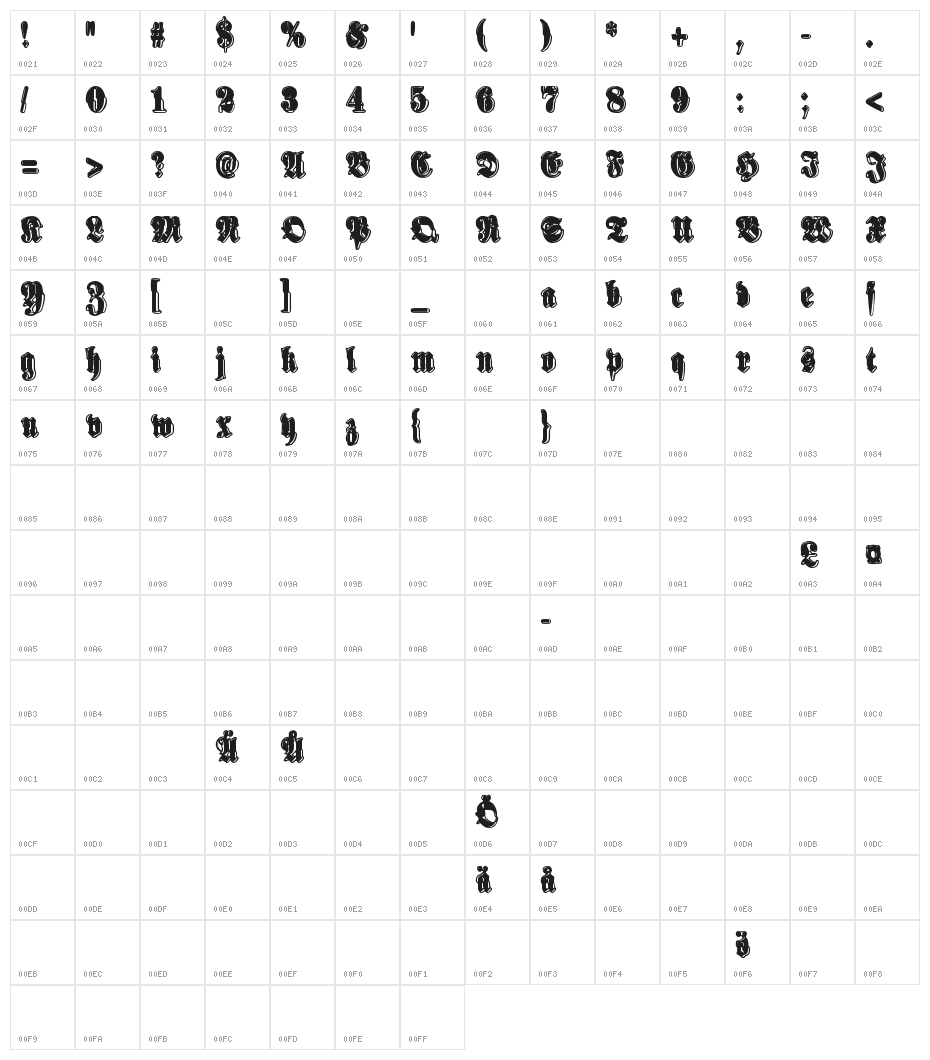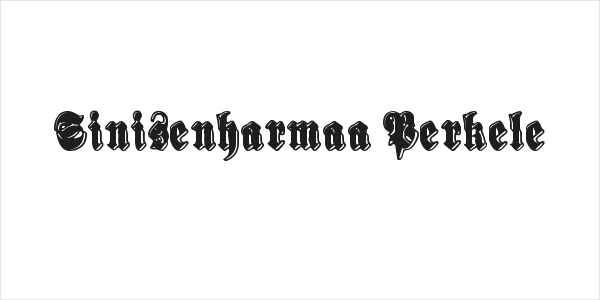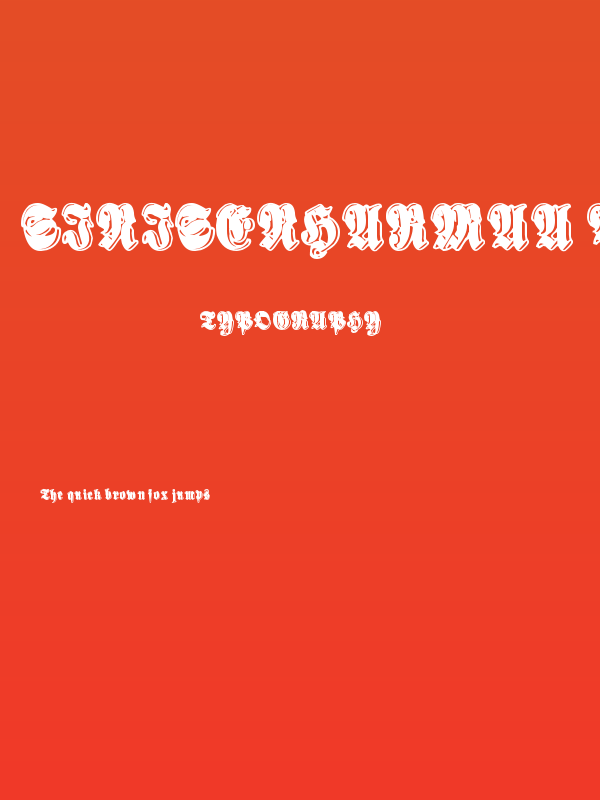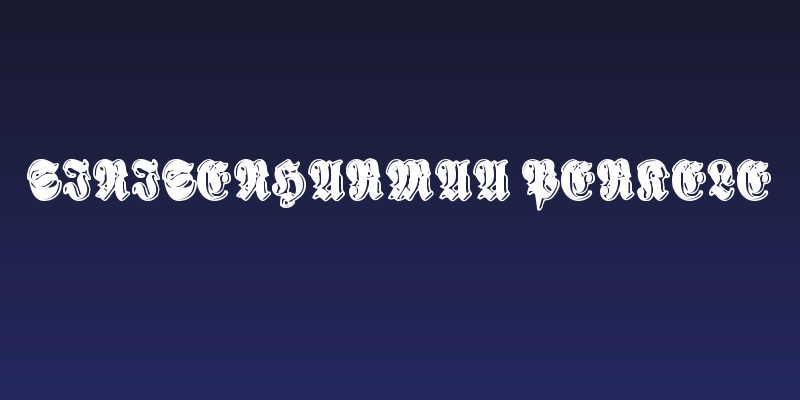
Sinisenharmaa Perkele Font
Sinisenharmaa Perkele Description
This font is a bold and intricate blackletter style, characterized by its dramatic and ornate design. The letters are highly stylized with sharp, angular edges and elaborate flourishes, reminiscent of medieval script. The uppercase and lowercase letters maintain a consistent aesthetic, with a strong emphasis on vertical strokes and pointed serifs. Numbers and special characters follow the same ornate pattern, ensuring a cohesive look across all glyphs. The font's heavy weight and detailed design make it stand out, suitable for projects that require a historical or gothic feel.
| Proposed Projects | Ideal for historical-themed designs, gothic posters, album covers, or any project needing a medieval touch. |